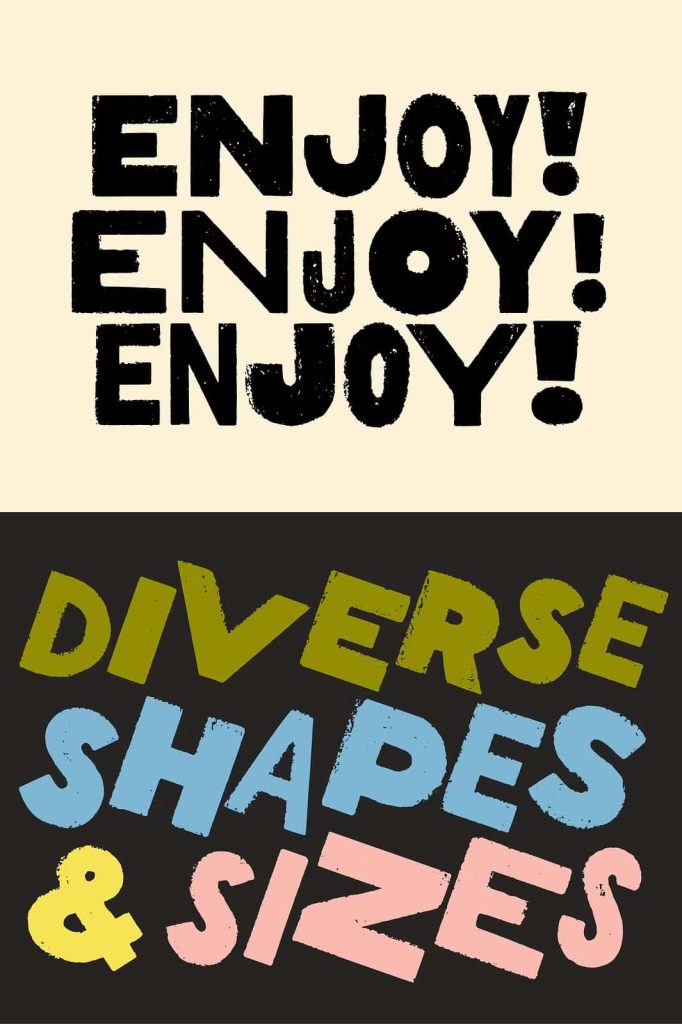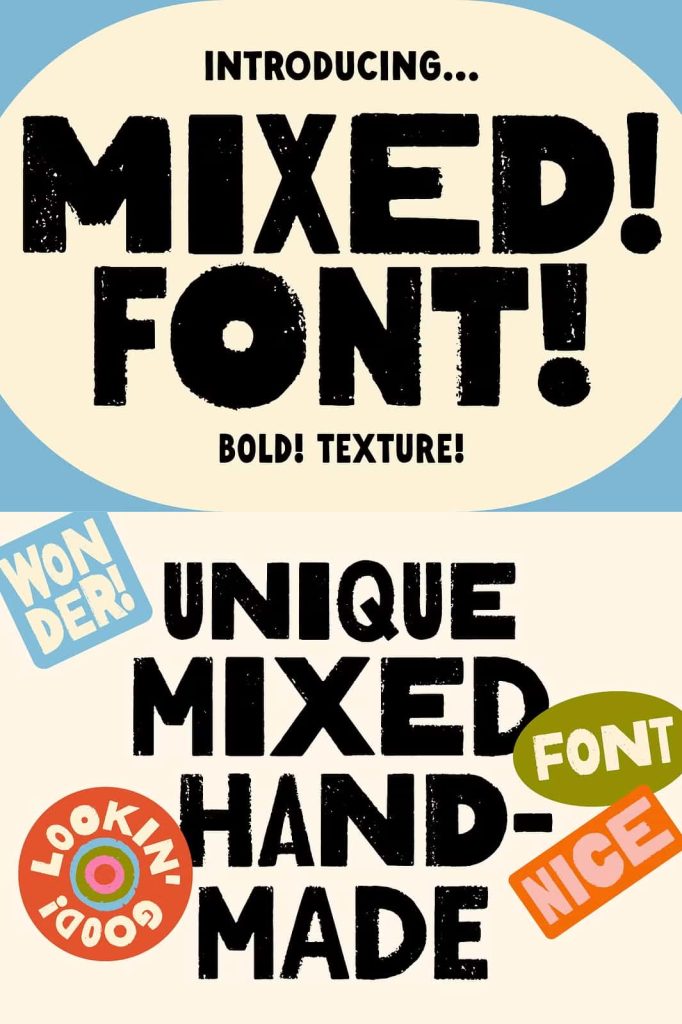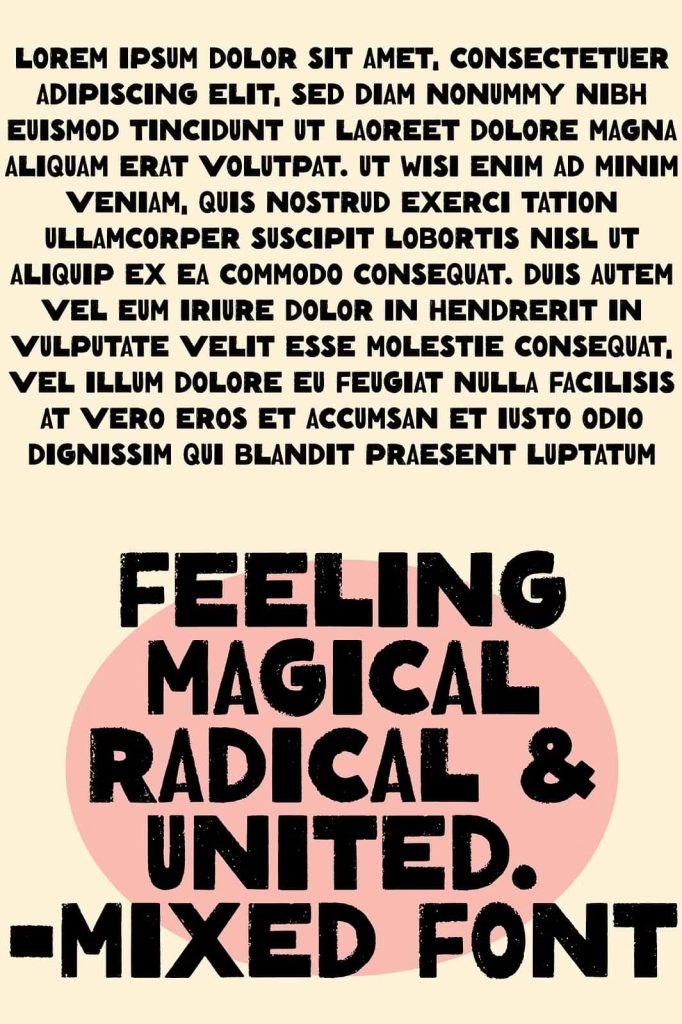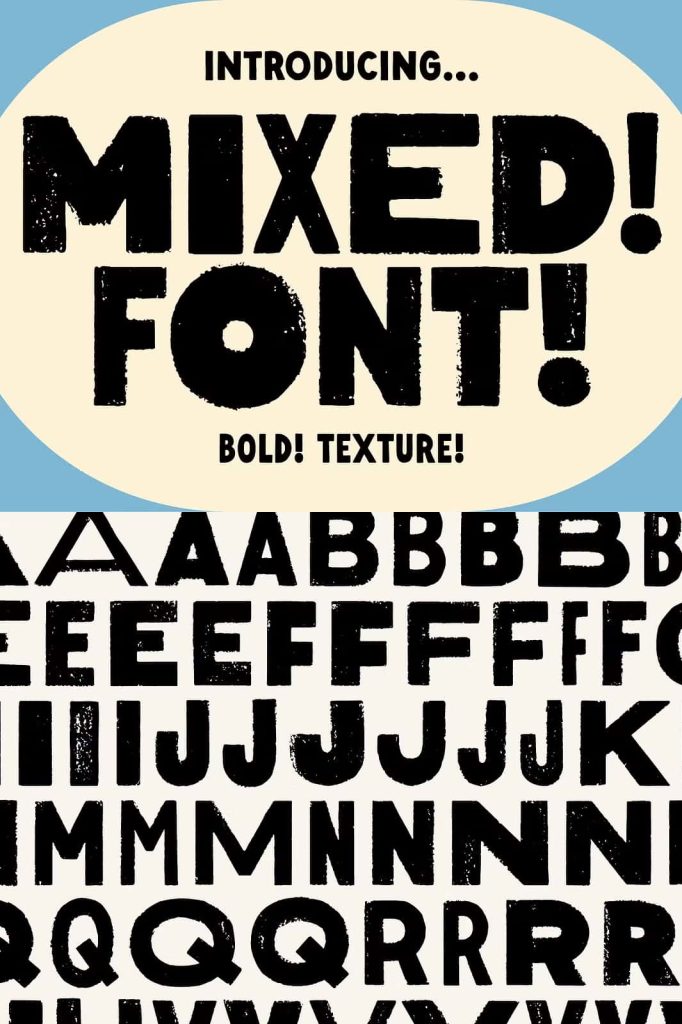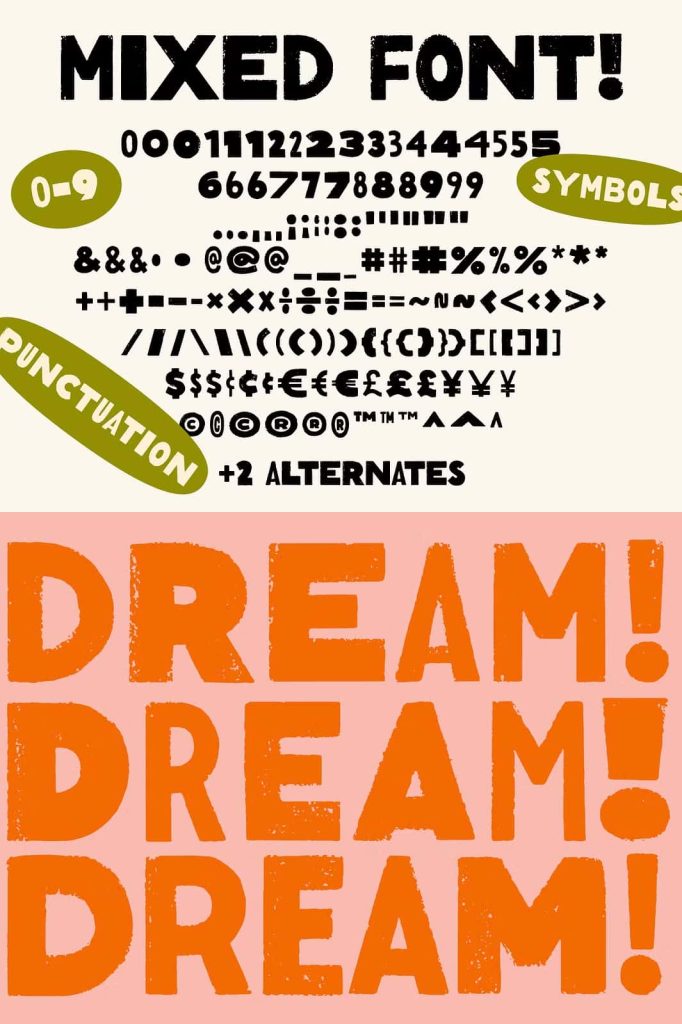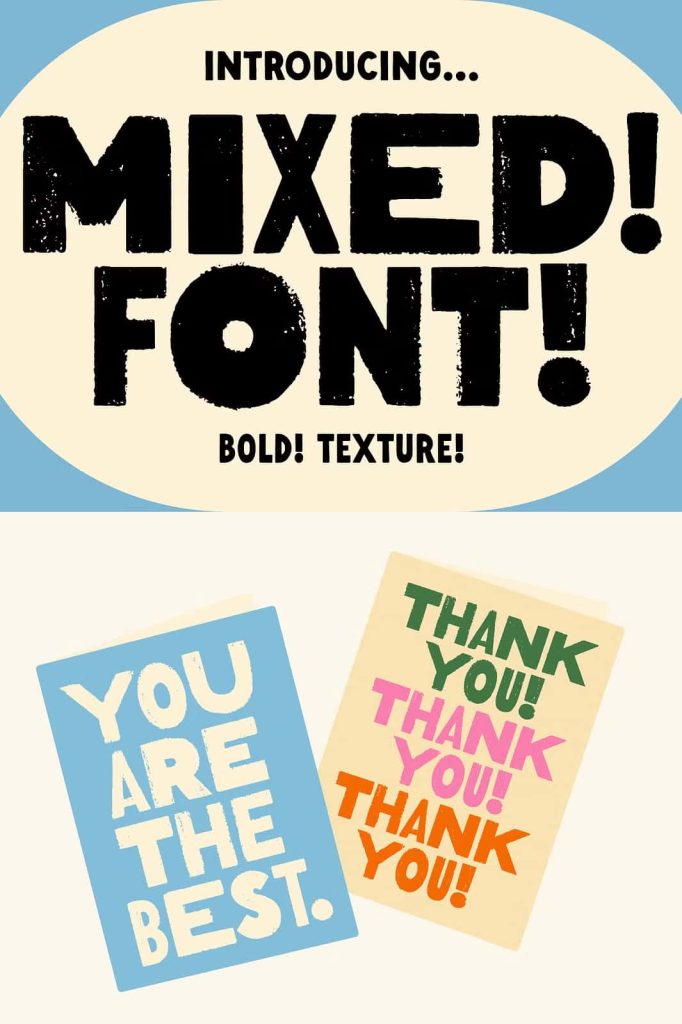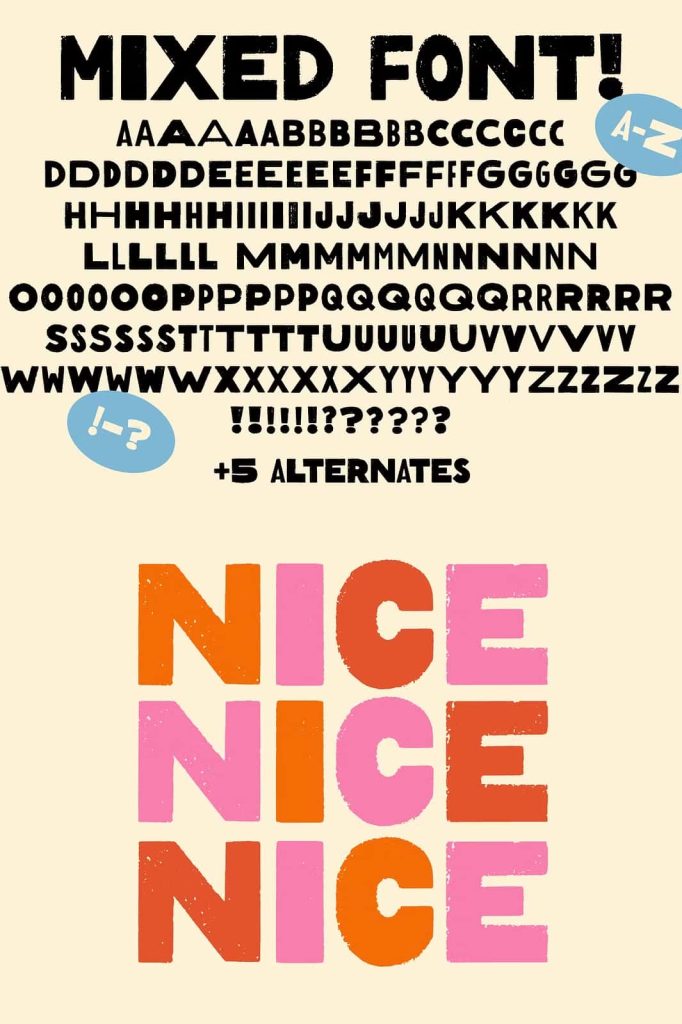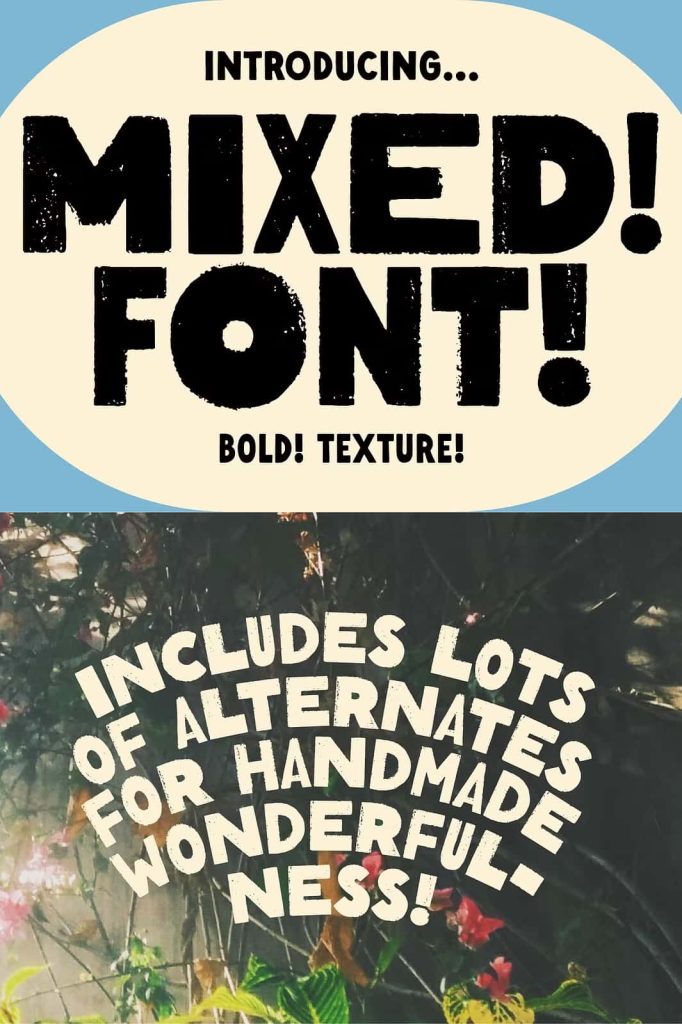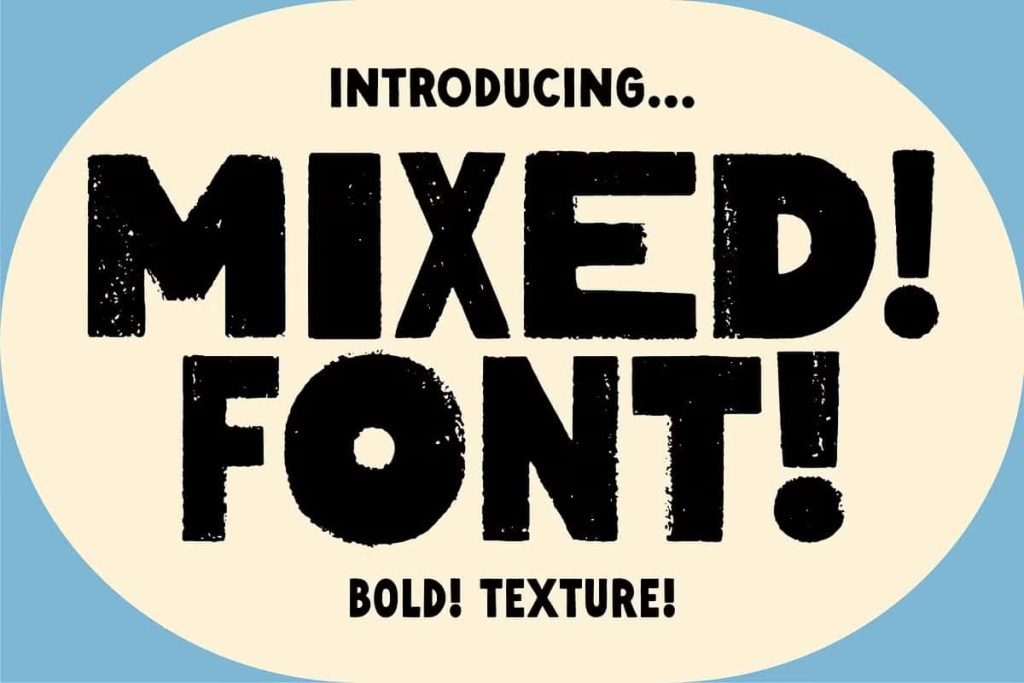
Mixed Font! Handmade! Bold! Texture!
Mixed Hand Lettered Uppercase Font: Retro Imperfection with Creative Freedom
Mixed is a hand lettered uppercase font that celebrates the beauty of imperfection and the charm of vintage design. Inspired by old printed retro signs, this typeface captures the raw and authentic character often found in traditional signage. Instead of aiming for perfect symmetry, Mixed embraces irregularity and variation, giving every letter a unique and expressive personality. This approach allows designers to create work that feels genuine, bold, and full of character.
Each letter in Mixed has been carefully drawn by hand, ensuring that the font maintains a consistent yet organic appearance. The handcrafted process adds depth and individuality, making it stand out in a world dominated by clean and uniform digital fonts. Designers who want to create eye-catching and memorable visuals will find Mixed to be a powerful tool that enhances both creativity and originality.
Inspired by Retro and Vintage Signage
Mixed draws strong inspiration from vintage signs that often featured imperfect printing and hand-painted lettering. These signs carried a unique charm because of their inconsistencies, and Mixed successfully brings that same spirit into modern design. The font reflects the character of an era where typography was crafted by hand and every detail mattered.
The slightly uneven edges and varied letterforms create a dynamic visual rhythm. This makes Mixed especially effective for designs that aim to evoke nostalgia while maintaining a contemporary edge. It allows designers to recreate the atmosphere of classic signage without losing flexibility or usability in modern applications.
Extensive Alternates for Maximum Creativity
One of the most powerful features of Mixed is its wide selection of alternate characters. Each letter includes multiple variations, giving designers the ability to mix and match freely. This feature transforms the font into a flexible design system rather than a static typeface.
By combining different alternates, designers can create text that feels natural and less repetitive. This approach mimics real hand lettering, where no two letters look exactly the same. The result is a more authentic and engaging visual experience that captures attention and keeps viewers interested.
Handcrafted Detail in Every Character
The creator of Mixed carefully illustrated every character, including all alternates, by hand. This level of attention ensures that the font maintains its handcrafted integrity across all uses. The subtle variations in stroke width and shape give the typeface depth and texture, making it visually rich and appealing.
This handcrafted quality allows Mixed to convey emotion and personality in a way that standard fonts often cannot. It creates a connection between the design and the audience, making messages feel more personal and impactful.
Perfect for Logos, Titles, and Artistic Designs
Mixed performs exceptionally well in logo design, where uniqueness and memorability are essential. Its bold and expressive style helps brands establish a strong identity that stands out from competitors. The ability to customize lettering using alternates further enhances its effectiveness in branding projects.
For quotes and artistic compositions, Mixed adds a creative and handcrafted touch that elevates the overall design. It transforms simple text into a visual statement, making it ideal for posters, prints, and social media graphics. The font’s playful yet structured appearance allows it to adapt to both casual and professional contexts.
In signage and titles, Mixed truly shines. Its vintage-inspired design aligns perfectly with projects that aim to capture a retro aesthetic. Whether used for physical signs or digital headers, the font delivers strong visual impact while maintaining readability.
Add a Handmade Touch to Any Project
Mixed brings a distinct handmade quality to any design it touches. It allows designers to move away from overly polished typography and embrace a more authentic and expressive style. This makes it particularly valuable for projects that require personality, creativity, and a human touch.
From branding and advertising to art and editorial design, Mixed offers versatility without sacrificing its unique identity. Designers can rely on this font to create work that feels both nostalgic and fresh, combining the best of vintage inspiration with modern flexibility.
By choosing Mixed, you gain more than just a font—you gain a creative tool that encourages experimentation and originality. Its retro roots, handcrafted details, and extensive alternates make it an essential asset for designers who want to produce standout work with a distinctive voice.